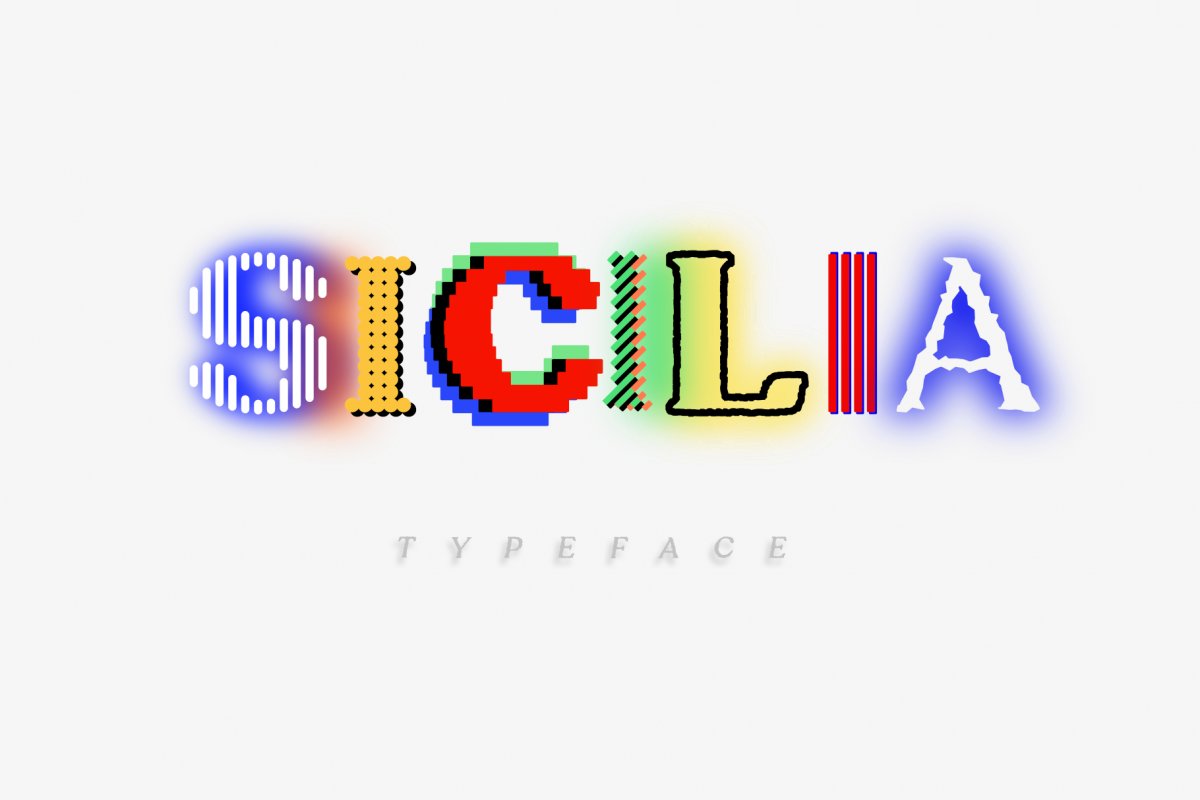
Sicilia
Sicilia-pixels
Sicilia-GrotesquePress
Sicilia-Melted
Sicilia-Rough
Sicilia-Blocks
Sicilia-Slide
Sicilia-Grotesque
Sicilia-Stripes
Sicilia-StripesRounded
Sicilia-Lines
Sicilia-GrotesquePOP
Sicilia-GrotesquePixels
Sicilia is a display typeface based on serif that has 12 fonts styles.
Sicilia